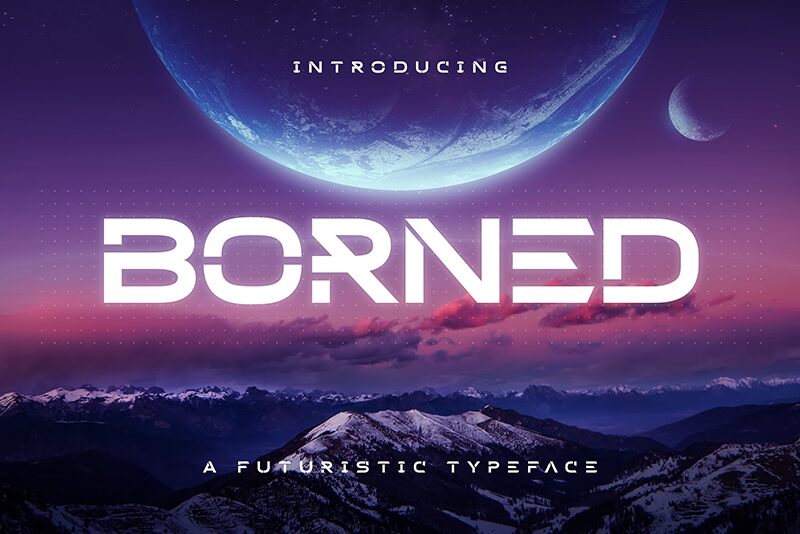
Borned
Borned font, crafted by Almarkhatype, embodies a striking futuristic aesthetic that captivates and engages. Its expanded form delivers an unmistakable presence, allowing letters to breathe and draw attention without overwhelming the viewer. The fluid lines and bold character shapes create an innovative style that seamlessly blends modernity with a touch of playfulness.
Ideal for eye-catching headlines, tech-savvy branding, or dynamic signage, Borned is perfect for designs that require a forward-thinking approach. Its unique flair makes it particularly suited for digital media and advertising campaigns aimed at youthful audiences seeking originality. In a world saturated with conventional typefaces, Borned stands out as a beacon of creativity and innovation.